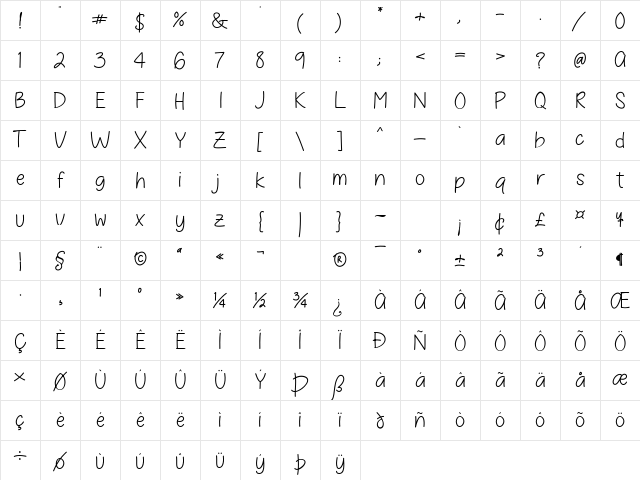
Complete Banana Moonpie Free Regular glyph index. Displaying only characters natively supported by Banana Moonpie Free Regular font.
Banana Moonpie Free is a composed and adaptable typeface that performs quietly and consistently across a wide range of design contexts.